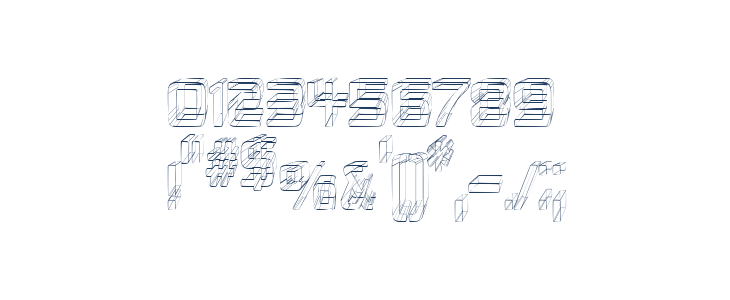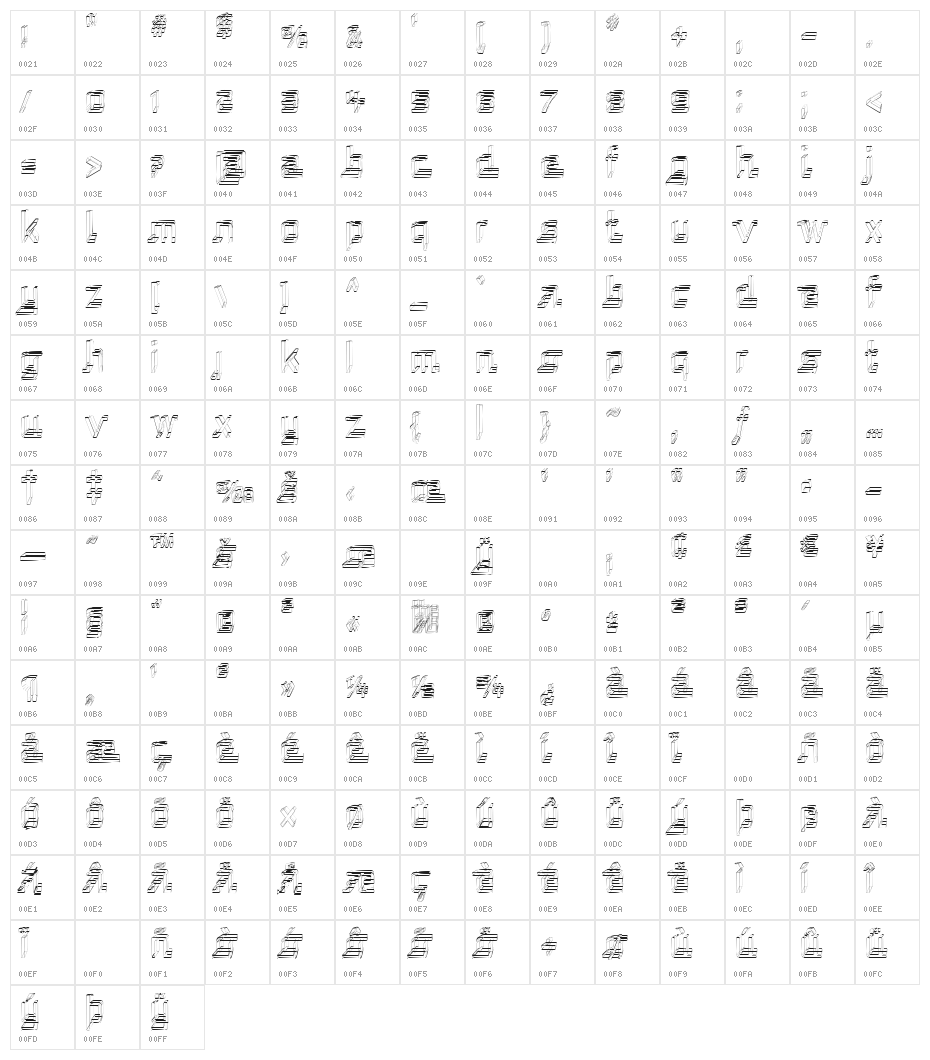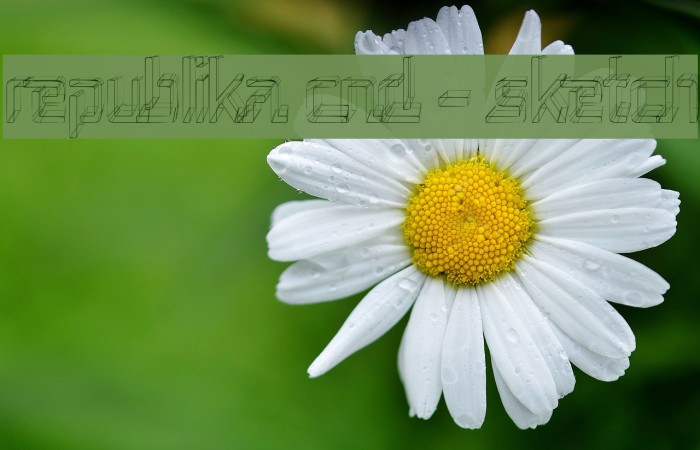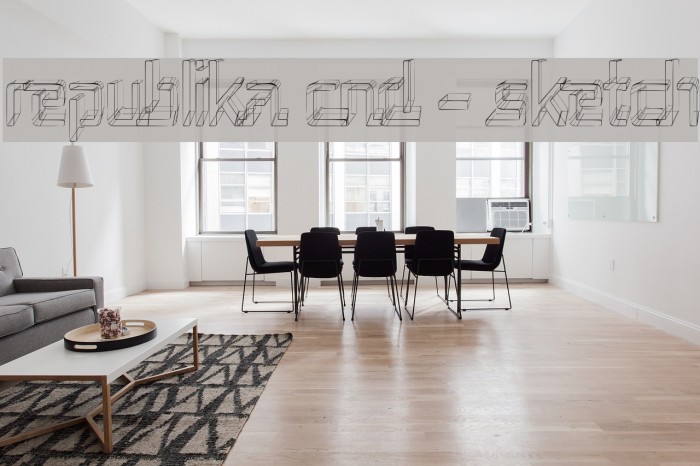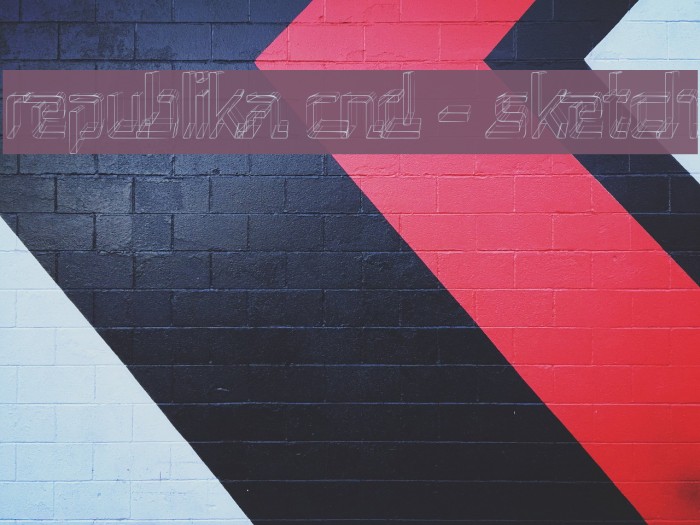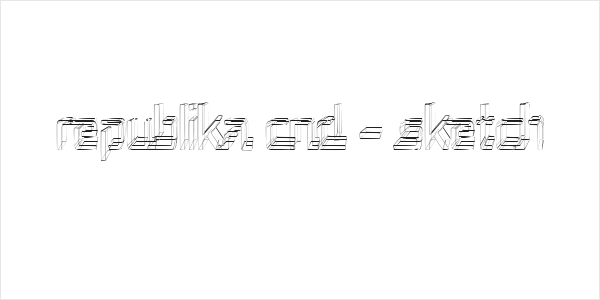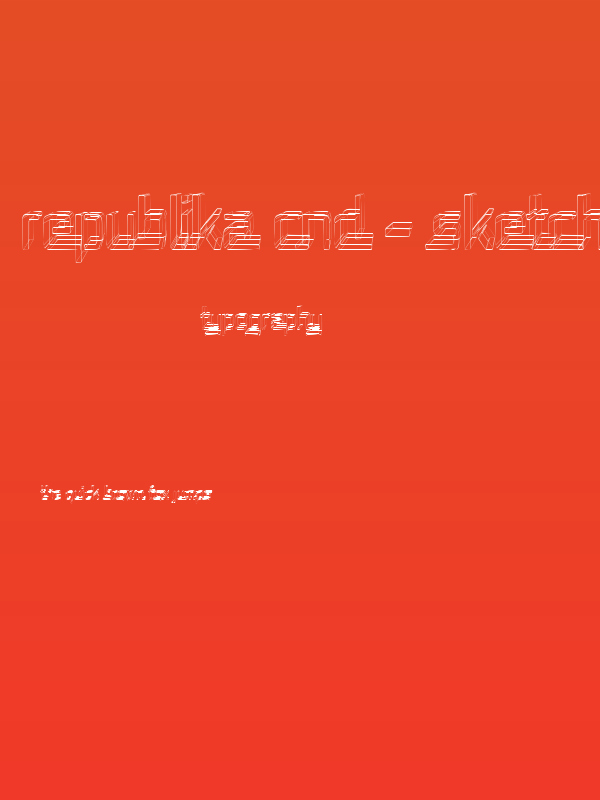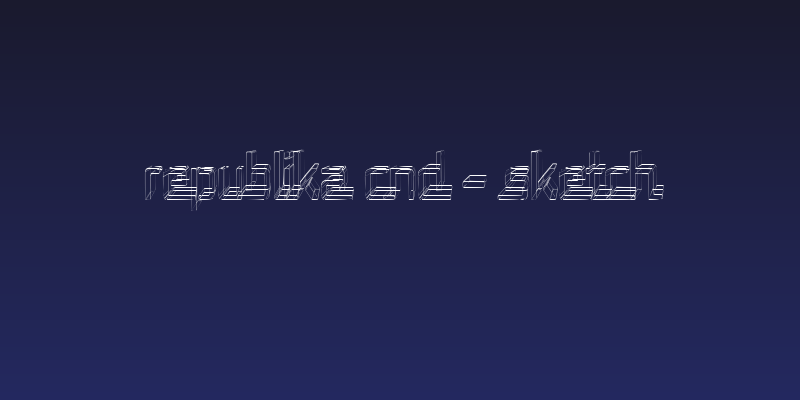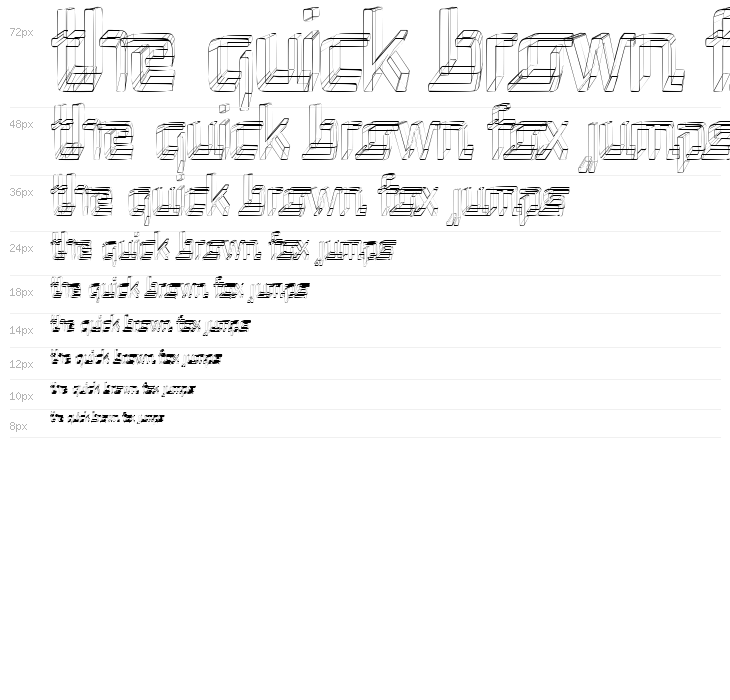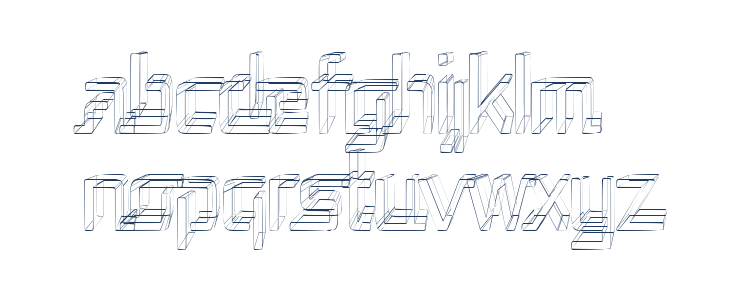
Republika Cnd - Sketch Font
Republika Cnd - Sketch Description
This font features a unique, sketch-like design with a three-dimensional appearance. Each character is constructed with overlapping lines, creating a sense of depth and movement. The style is geometric and angular, with consistent line thickness throughout. The uppercase and lowercase letters maintain a uniform structure, while the numbers and special characters follow the same design principles. This font's distinctive look makes it stand out, offering a creative and artistic vibe suitable for various design projects.
| Proposed Projects | Ideal for creative projects such as posters, album covers, and branding materials that require a bold and artistic touch. |